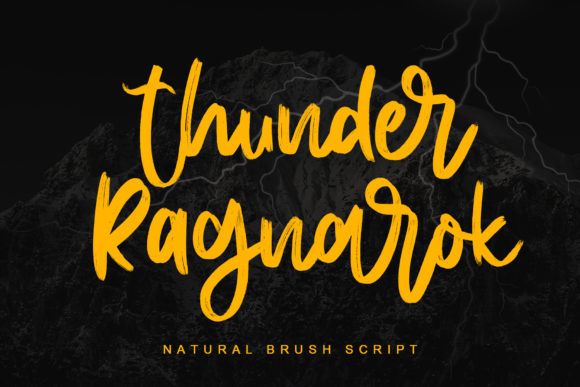
Unleash the Power of Expression with Thunder Ragnarok: The Gateway to Creative Liberation
In a world where conformity often reigns supreme, Thunder Ragnarok emerges as a beacon of individuality, a font that ignites the imagination and propels your designs to new heights of creativity. With its striking, unique style, this captivating script font breaks the mold, allowing your words to dance with a life of their own.
Picture this: you're crafting an Easter basket design, seeking to capture the essence of joy and excitement. Thunder Ragnarok swoops in like a magic wand, transforming your vision into an enchanting reality. The font's intricate curves and dynamic strokes evoke a sense of wonder, beckoning the recipient to embark on an adventure filled with laughter, surprises, and cherished memories.
Beyond Easter baskets, Thunder Ragnarok's versatility knows no bounds. It's the perfect companion for greeting cards, invitations, branding materials, social media posts, and countless other projects. Its striking presence commands attention, leaving a lasting impression wherever it appears.
But Thunder Ragnarok is more than just a pretty face. It's a tool that empowers you to communicate your message with clarity and impact. Whether you're a seasoned designer or just starting your creative journey, this font will elevate your work, adding a touch of sophistication and intrigue.
With Thunder Ragnarok at your fingertips, you can:
- Craft Easter baskets that overflow with charm and personality, making them truly unforgettable keepsakes.
- Design greeting cards that convey heartfelt sentiments, leaving a lasting impression on your loved ones.
- Create invitations that set the tone for unforgettable events, sparking anticipation and excitement.
- Develop branding materials that exude professionalism and creativity, making your business stand out from the crowd.
- Elevate your social media presence with visually stunning posts that capture the attention of your audience.
So, embrace the transformative power of Thunder Ragnarok, and witness the birth of designs that ignite, inspire, and captivate. Unleash your creativity, break free from the ordinary, and let your imagination soar.